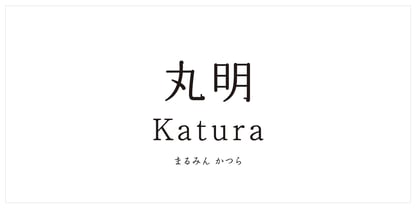
Marumin Katura Std N
The Marumin Katura Std N Font Family was designed by and published by Kinuta Font Factory. Marumin Katura Std N contains 1 styles. More about this family
The kana character design of Marumei Katura is based on the traditional block style of calligraphy and brushwork. The stately letterforms are elegant and traditional, while the speed of the brushstrokes is sharp and powerful.